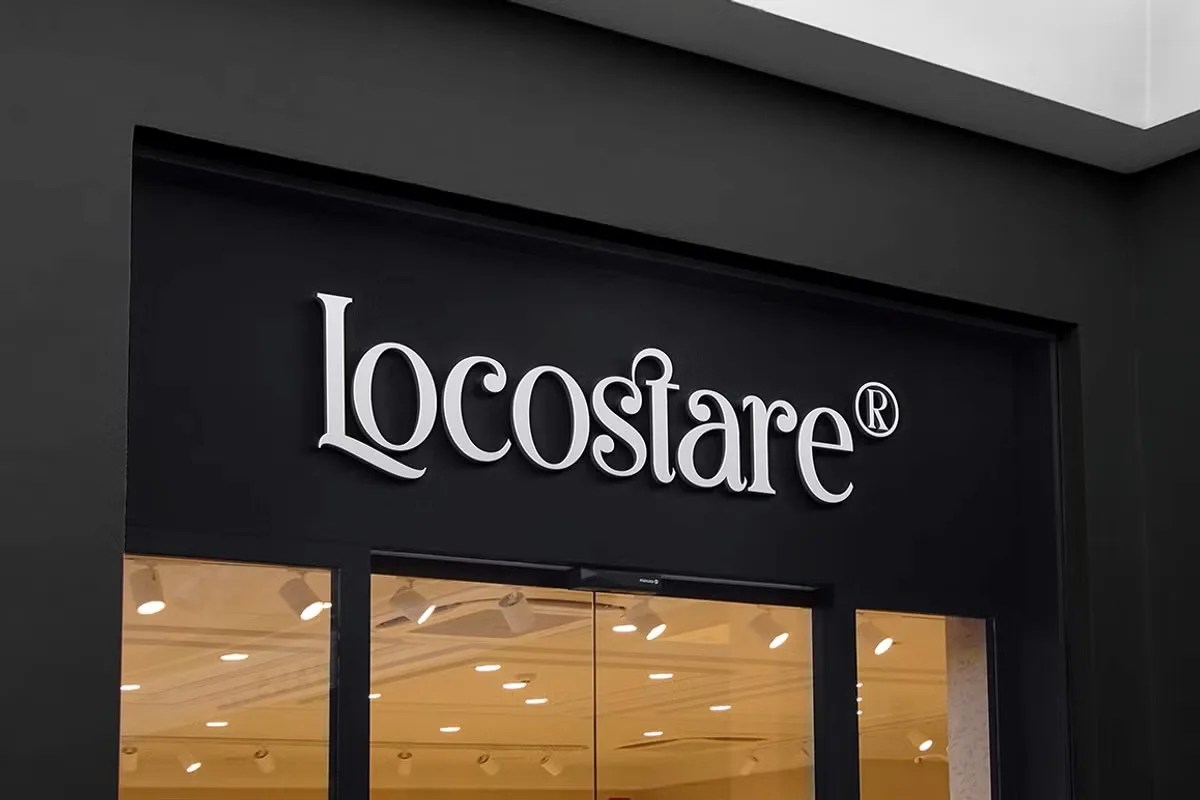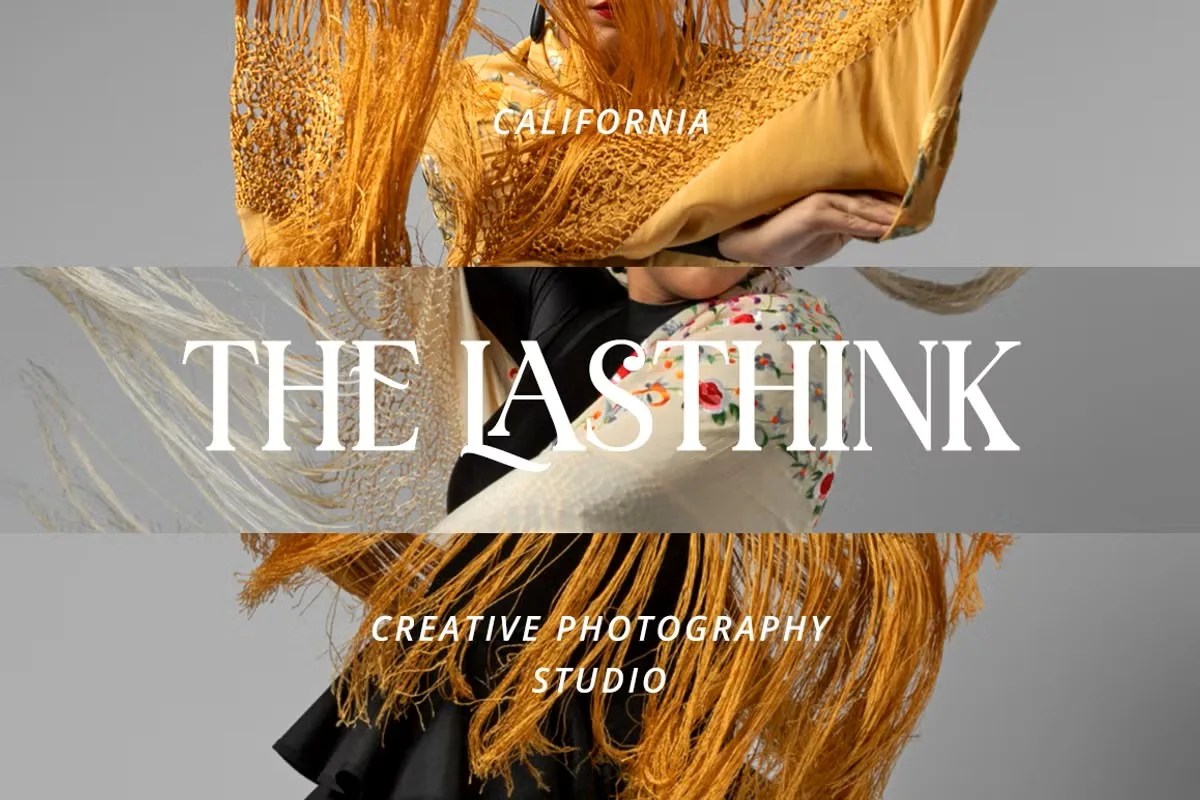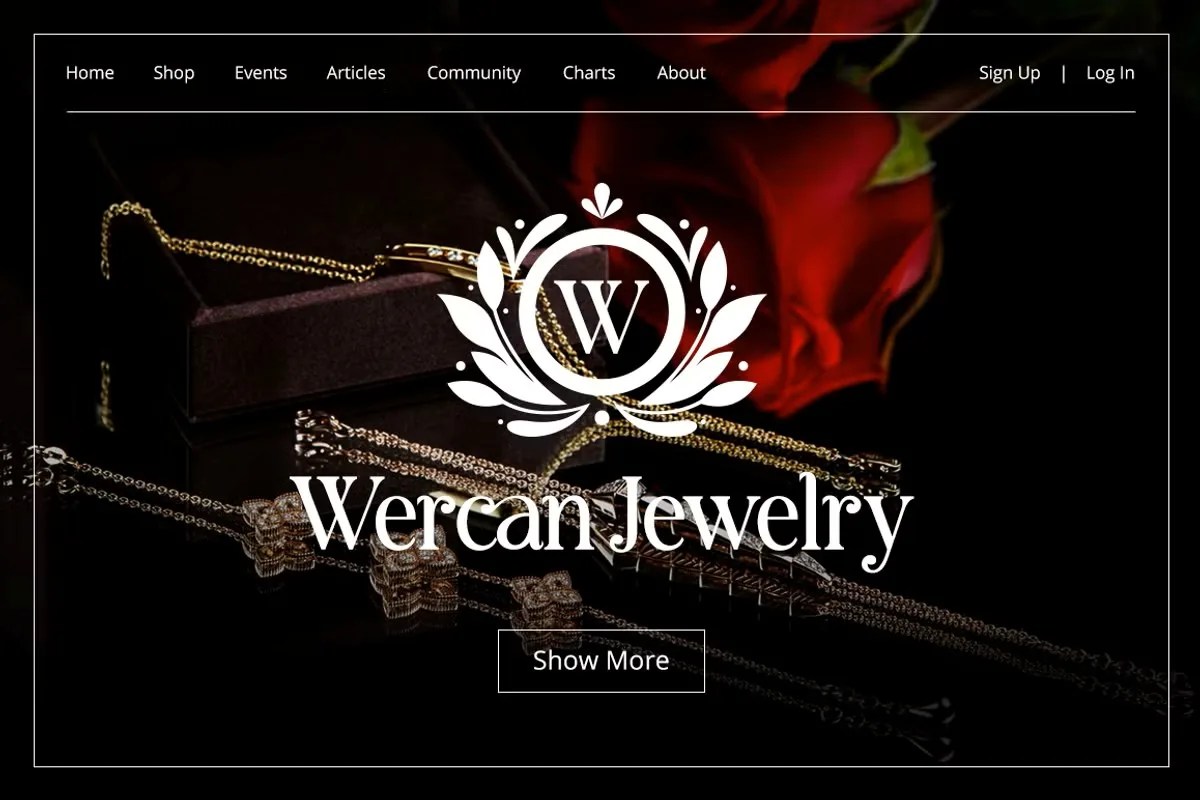
Bestogram by RockboyStd. This is a bold and stylish display serif with a ton of retro character. It perfectly merges the classic structure of a serif with a modern, confident attitude. The font is designed to stand out from the crowd. It gives your text a memorable and fashionable voice that feels perfectly at home in today’s fast-paced digital landscape. Bestogram is the ideal choice for designs that need to make an immediate and lasting impression.
This font is a fantastic tool for brands that want to be on-trend. Specifically, its bold look is perfect for creating eye-catching social media content and logotypes. It helps a brand command attention in a crowded feed. Furthermore, this stylish display serif is an excellent choice for magazine headlines, fashion lookbooks, and website banners. Its retro vibe can create a powerful and specific mood for any layout, making it a versatile choice for designers aiming for a cool, confident aesthetic.
• Bold and stylish display serif
• Features a strong, retro-inspired character
• Ideal for branding, social media, and headlines
• Provides a high-impact, fashionable look
Bestogram